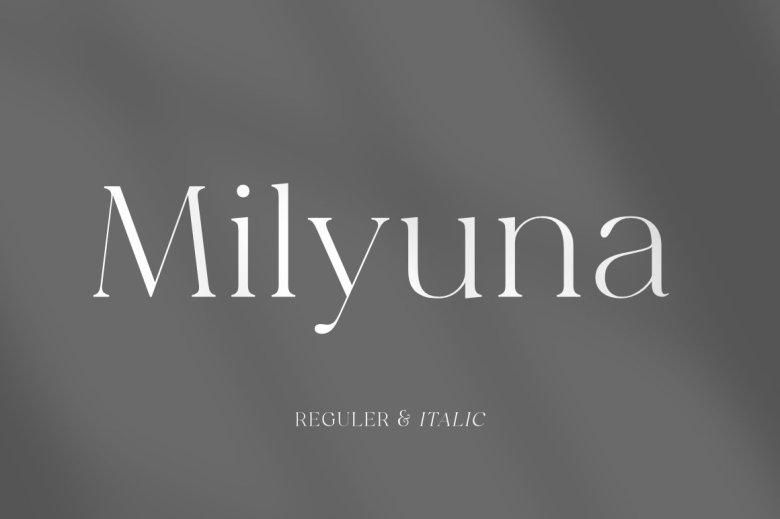
Milyuna Font
Milyuna is an Serif font with a very classic style but that can wrap code. The two different styles, Regular and Italic, we made can be used for almost any function. Use it as a headline font on your site. Have it embossed into business cards.
Applied to inspirational quotes in your home all surfaces For example, YouTube covers or Instagram banners designed in this elegant font would be very stylish indeed. Or with wedding invitations.
Milyuna Serif Font